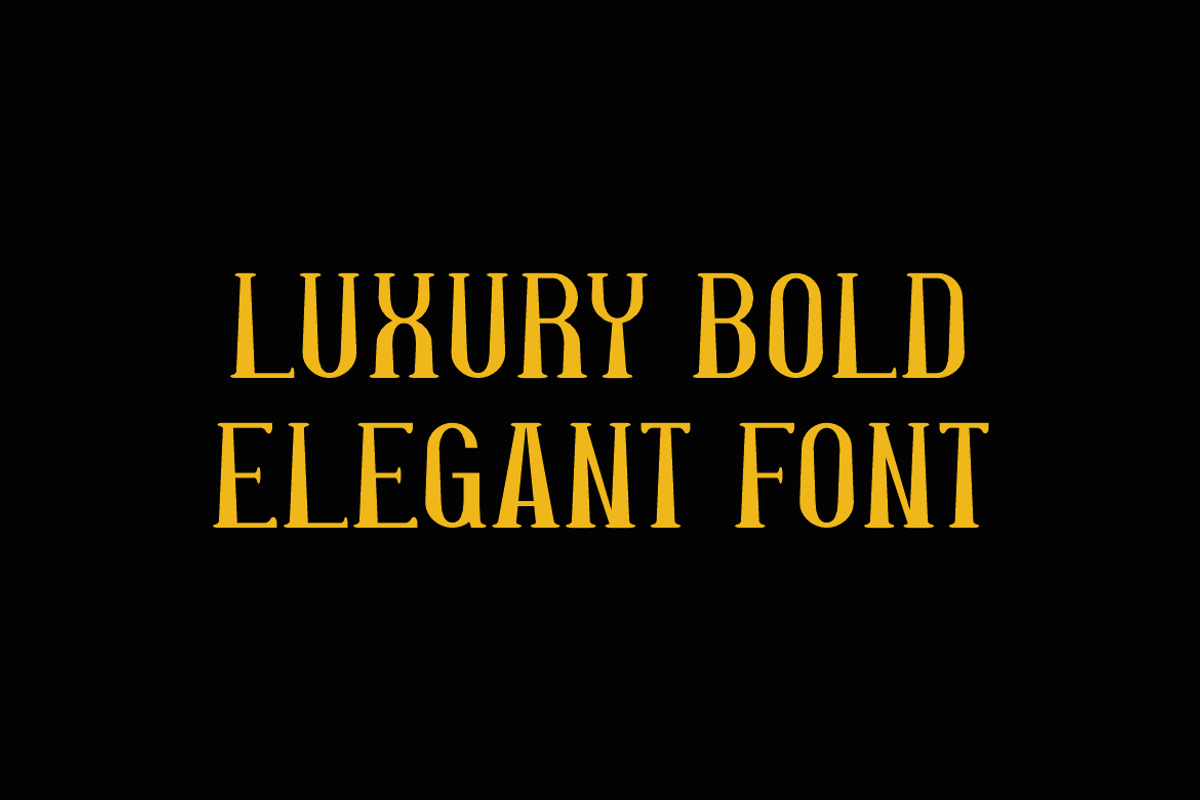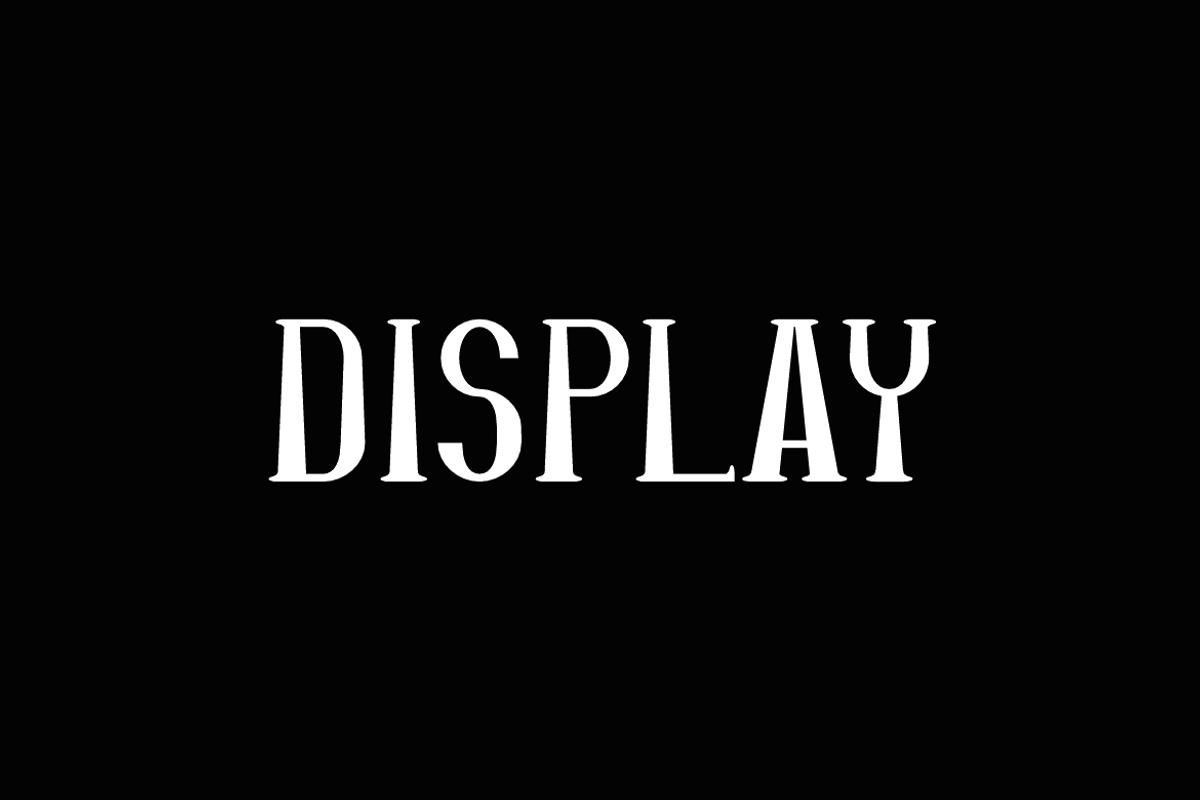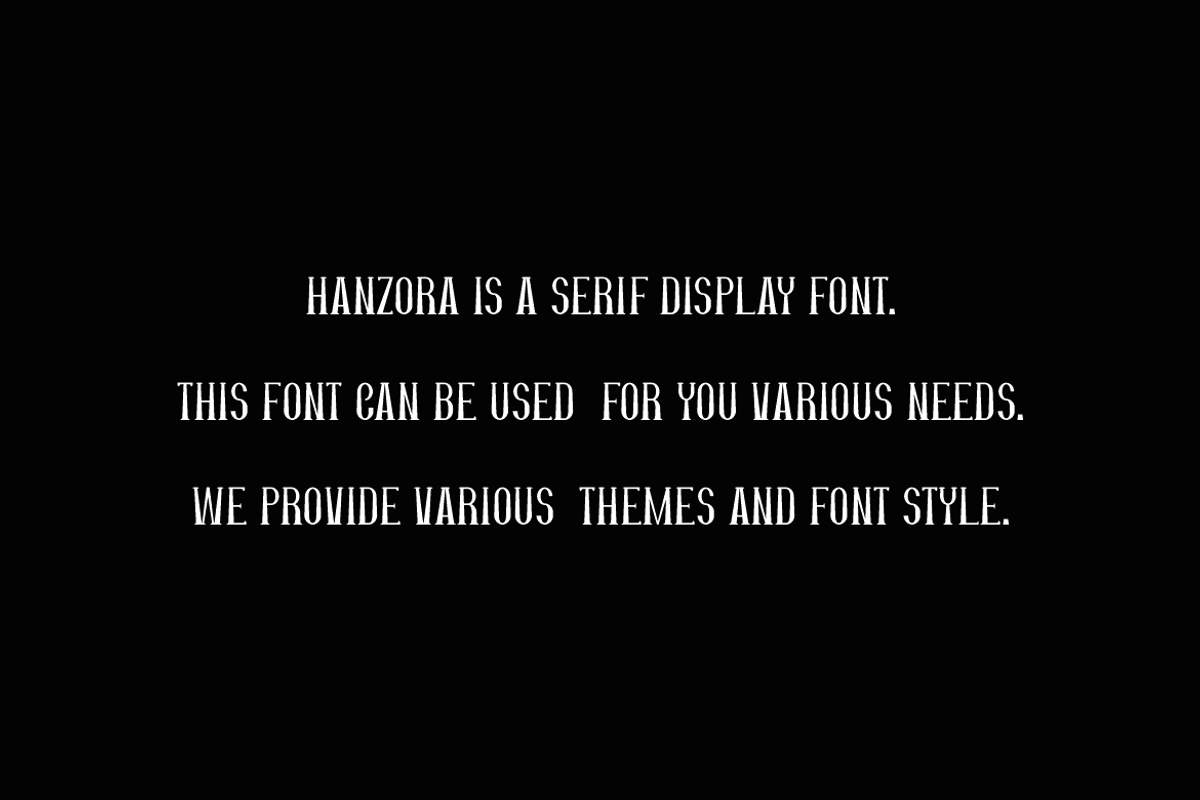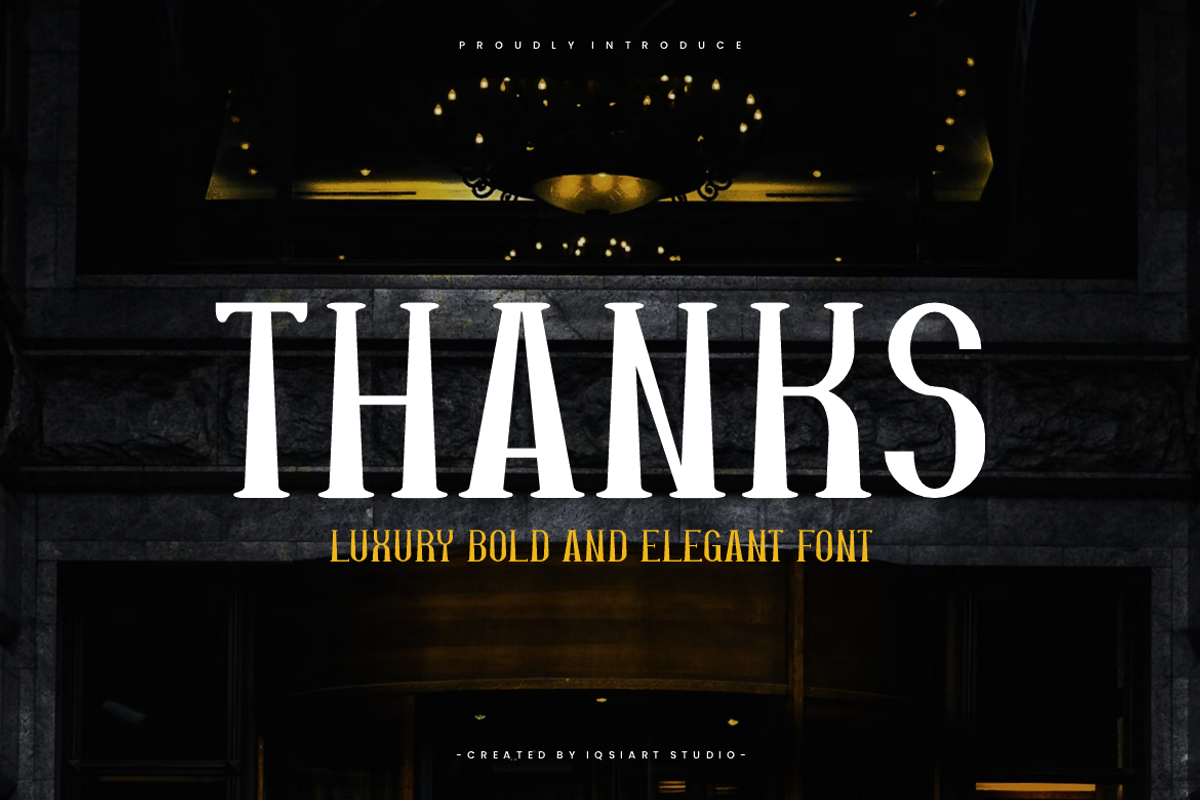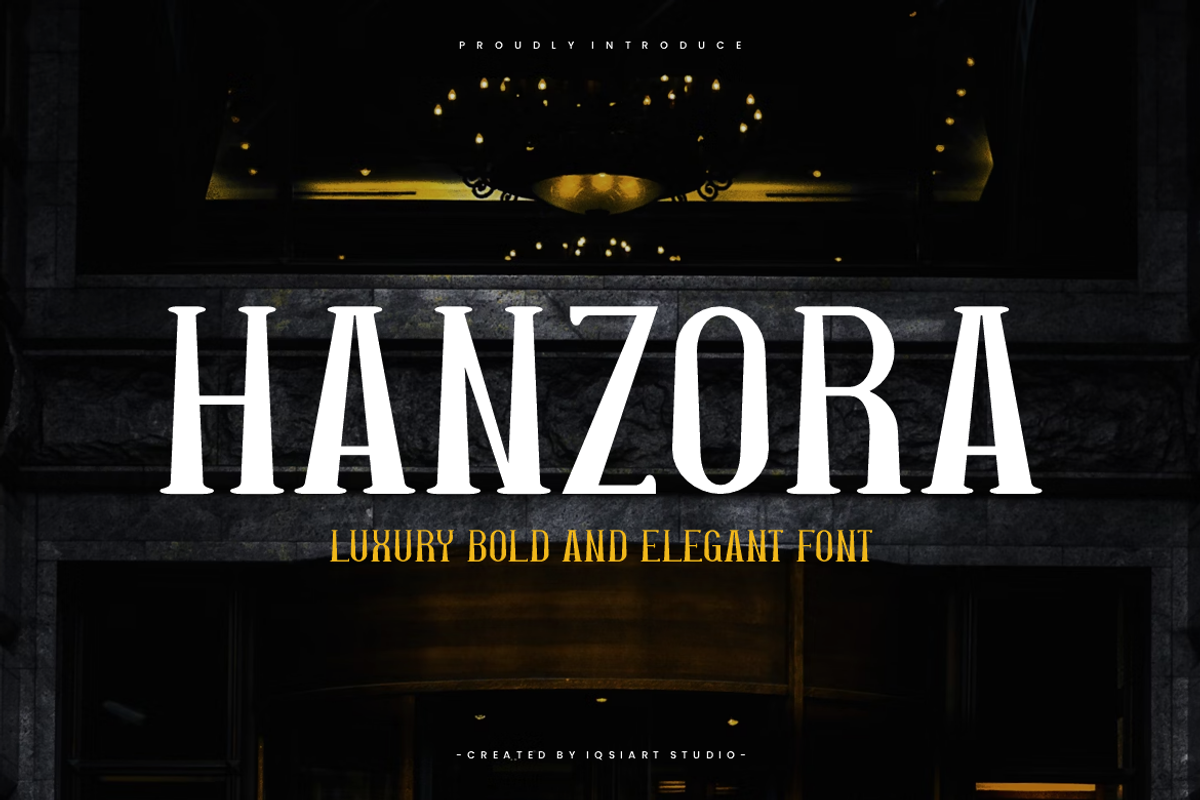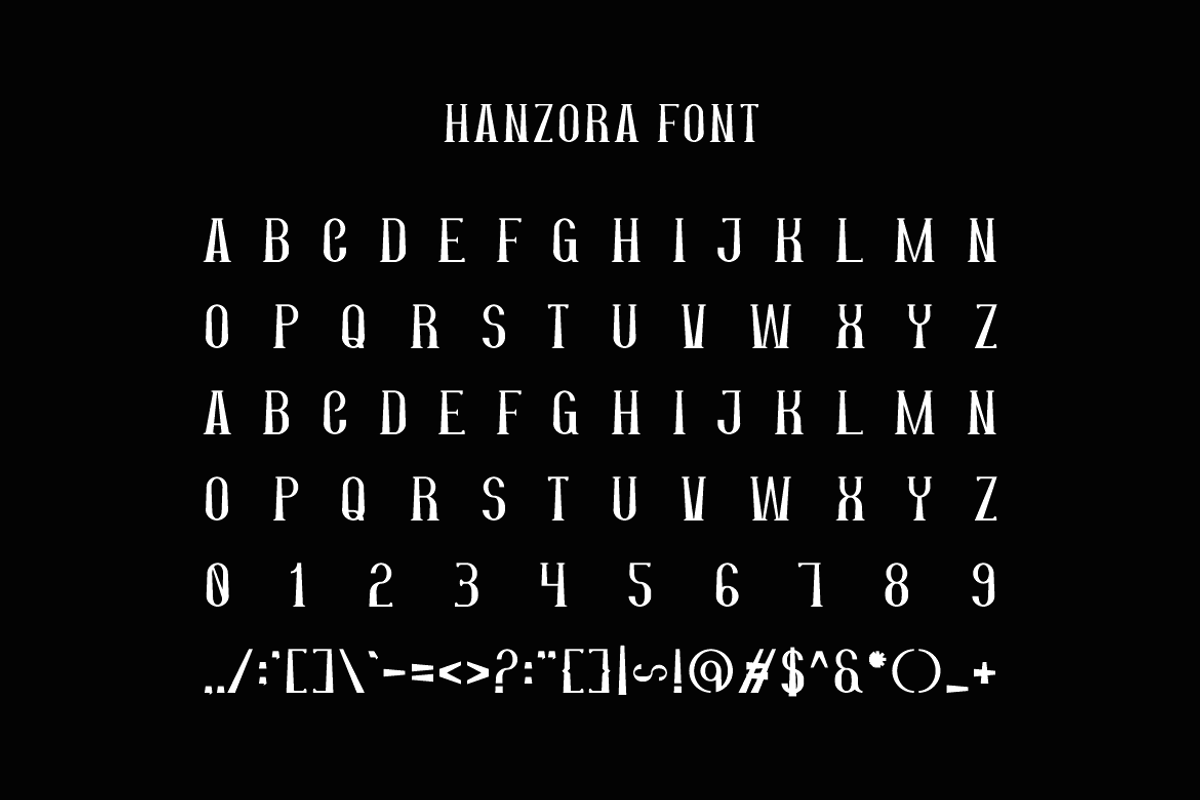
Hanzora - Luxury Bold Font
Hanzora Font is a best and authentic display font. This font can be used for your various needs. We provide various themes and font styles. visit our profile to get a wide variety of themes and different font styles you need.